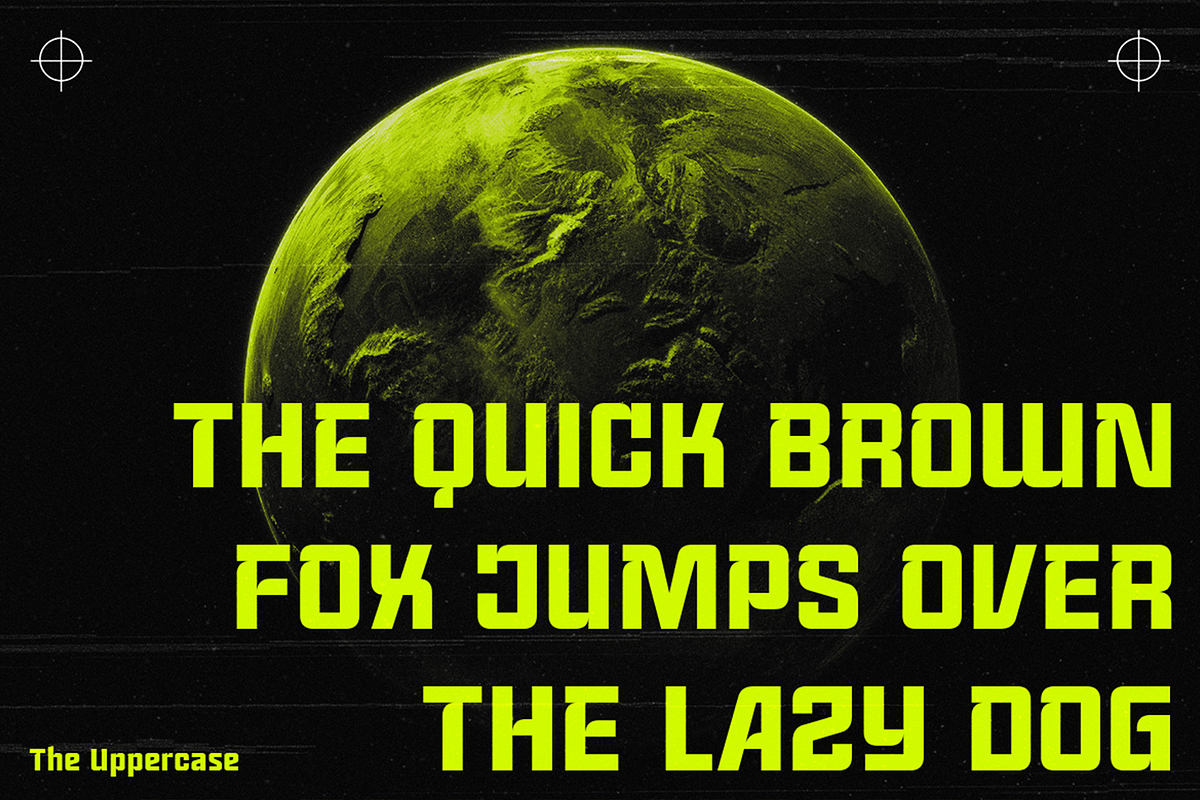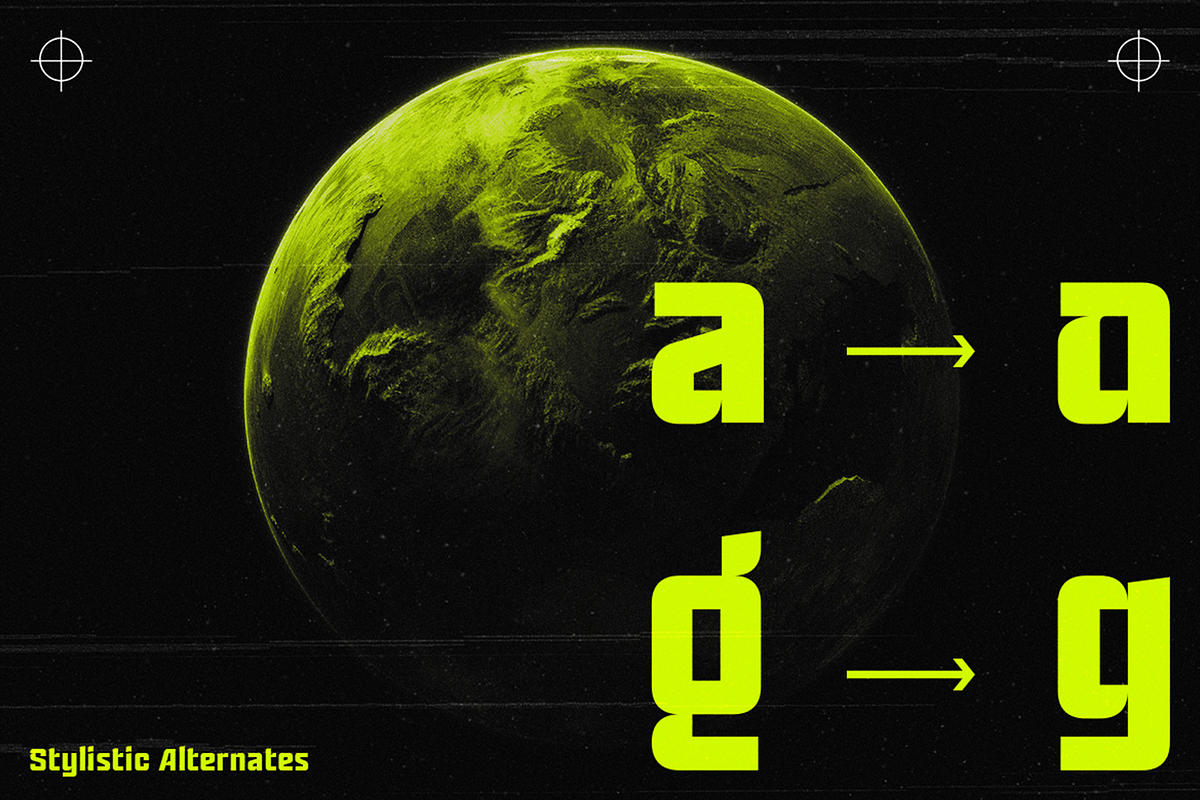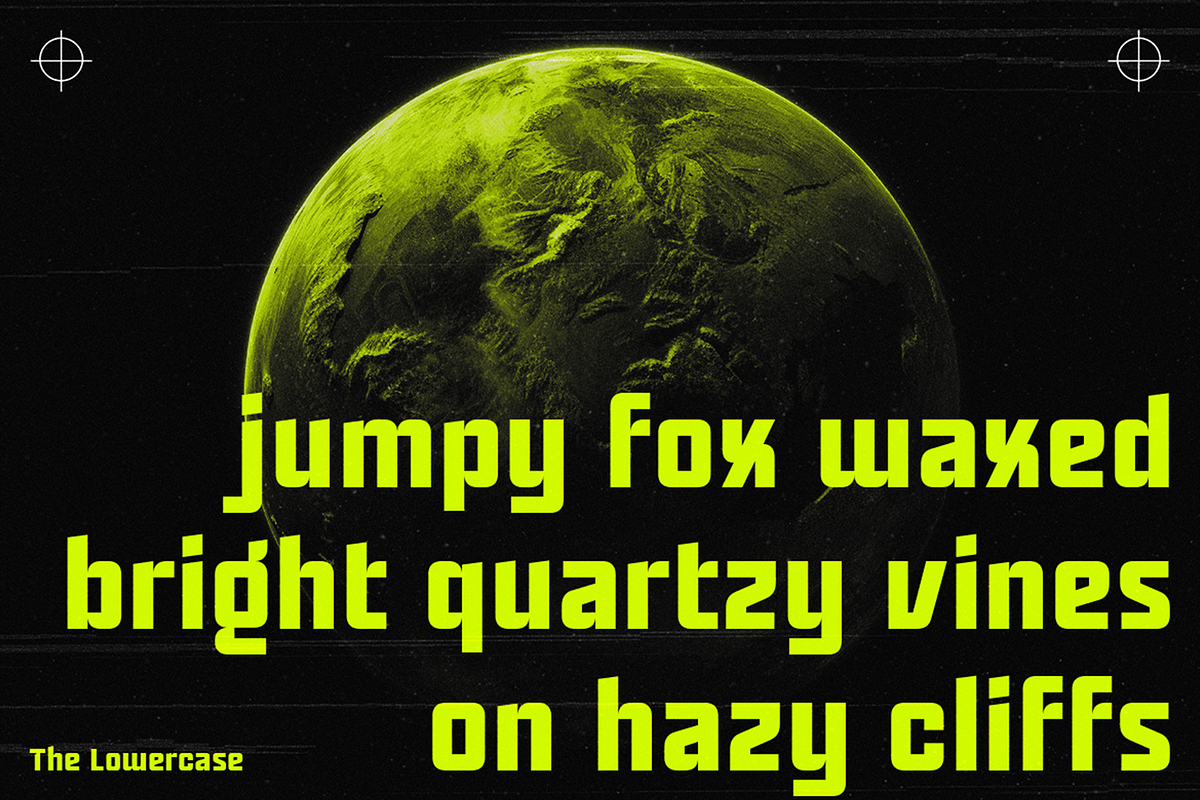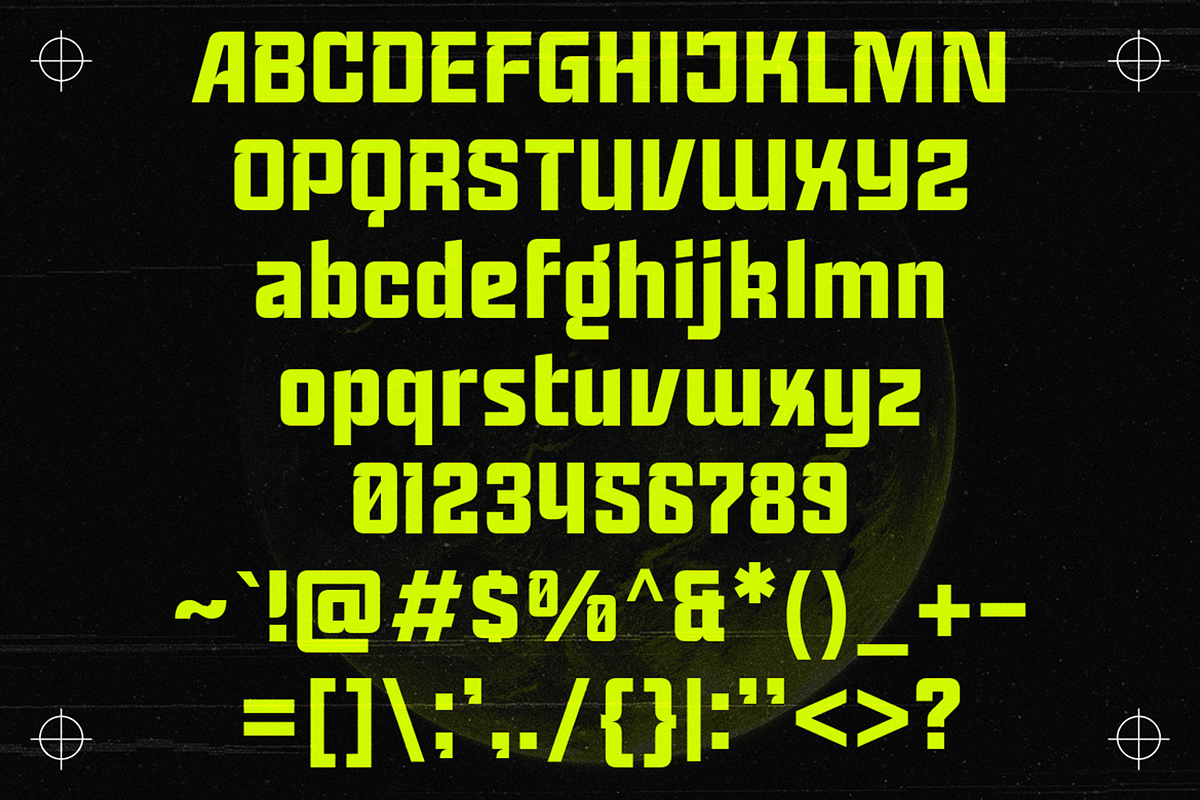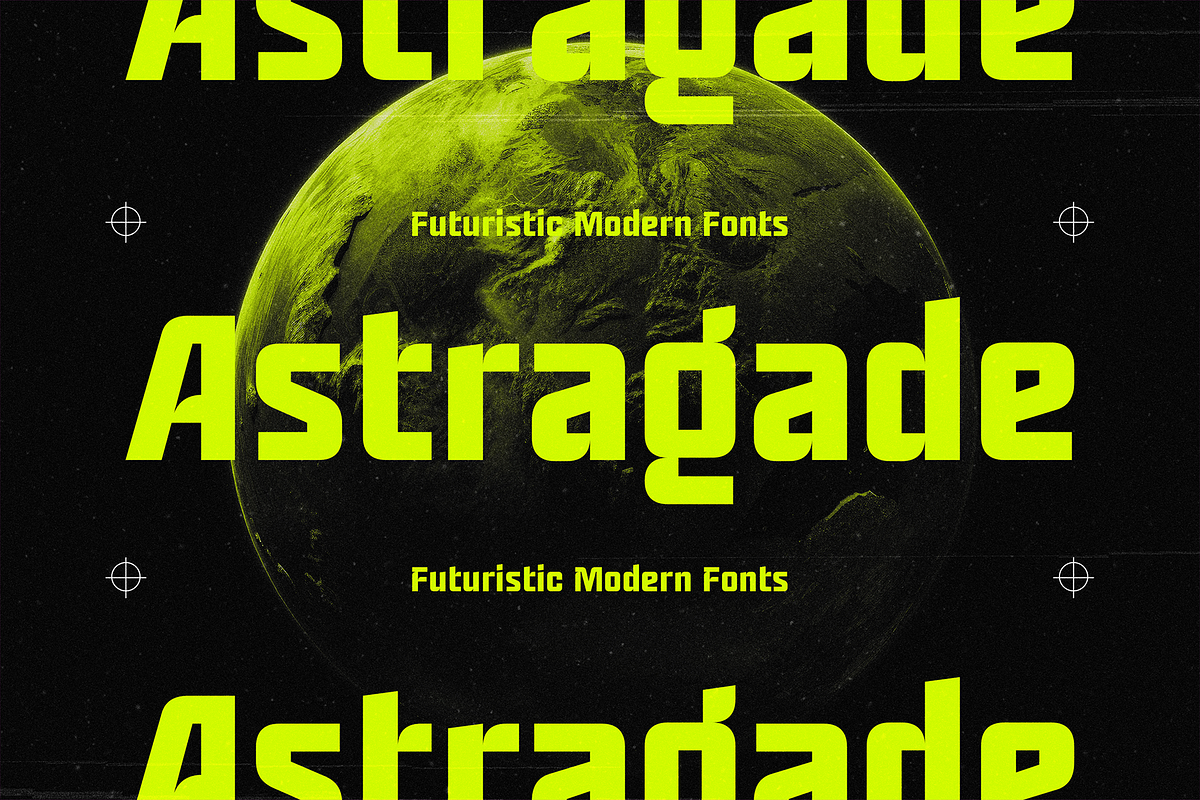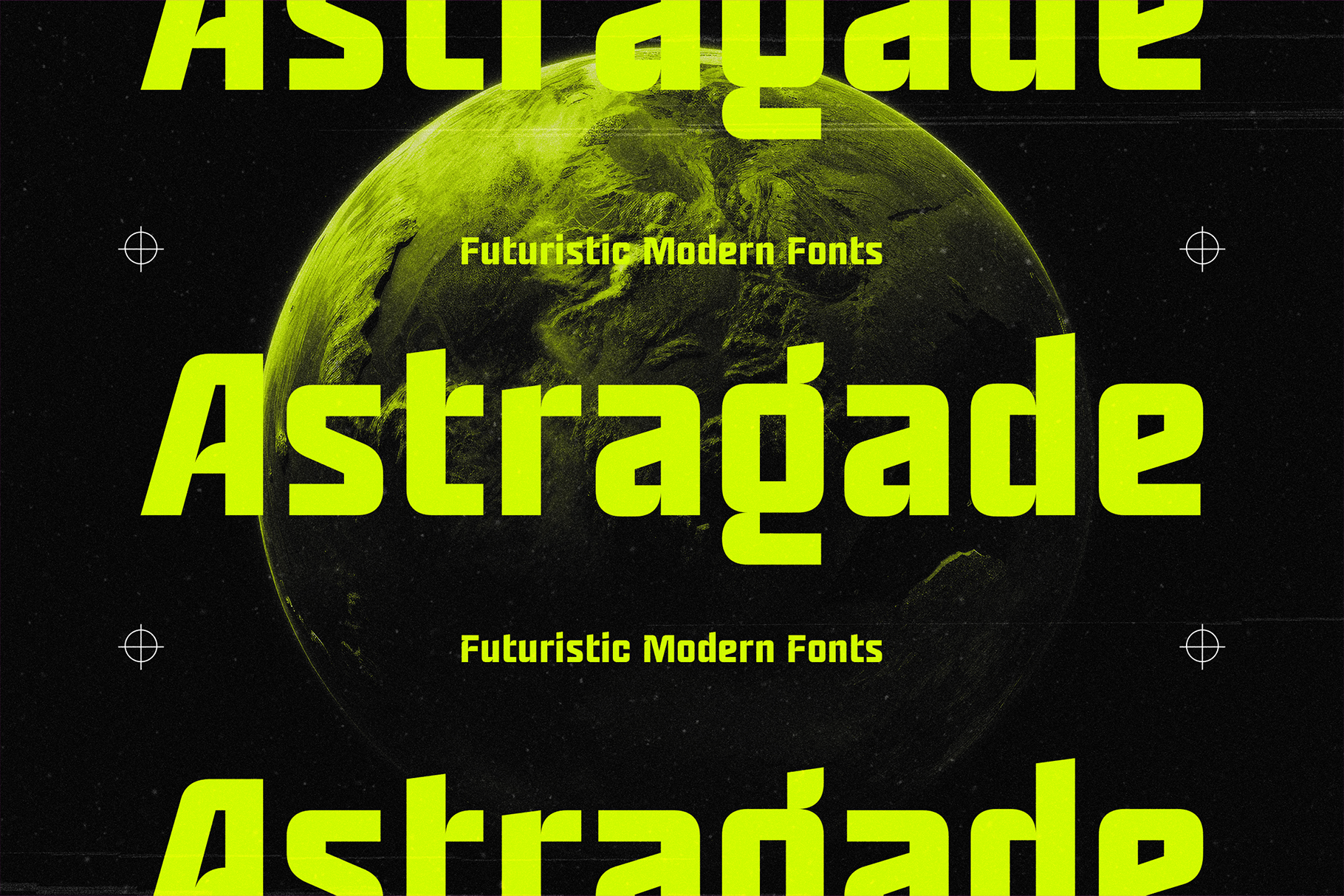
Astragade - Futuristic Modern Fonts
Unlock the Future with Astragade: The Ultimate Futuristic Modern Font
Step into the world of tomorrow with Astragade, a font designed for the bold and visionary. Perfectly blending sleek futuristic aesthetics with the cutting-edge vibes of modern branding, Astragade delivers a touch of technology and sci-fi that elevates your design to the next level. Whether you’re crafting a brutalist poster, designing for the world of cyberpunk gaming, or branding a high-tech product, Astragade is your key to standing out.
- Esports logos that demand attention
- High-tech product branding with a sleek, futuristic edge
- Futuristic brutalism posters with daring visuals
With Astragade, the future is now.